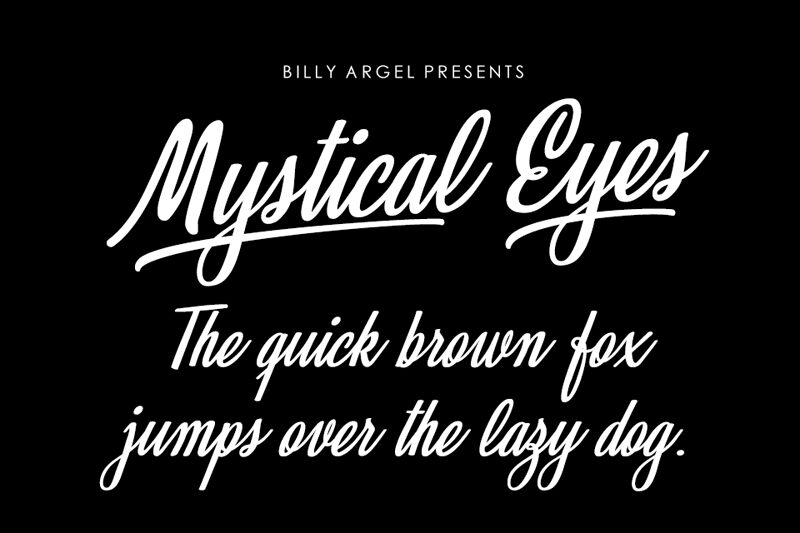
Mystical Eyes Personal Use Regular
Mystical Eyes is a captivating calligraphy font that exudes a sense of enchantment and mystery. Characterized by its condensed, flowing strokes, this font evokes a sense of elegance and sophistication. The sharp, exaggerated serifs and dramatic flourishes lend an air of mysticism, making it an ideal choice for fantasy-inspired designs, book covers, and logos that seek to convey a touch of the supernatural.
Mystical Eyes' versatility extends beyond these applications, as its bold, visually striking nature also lends itself well to attention-grabbing headlines, event branding, and editorial layouts.